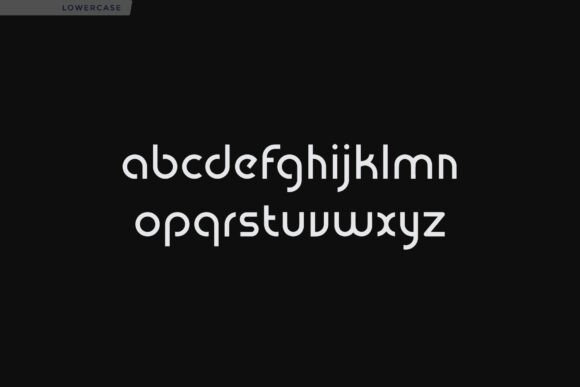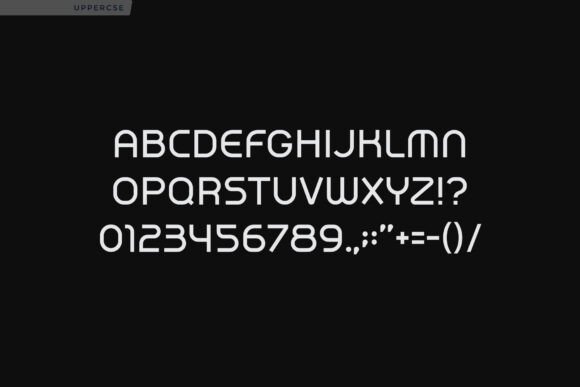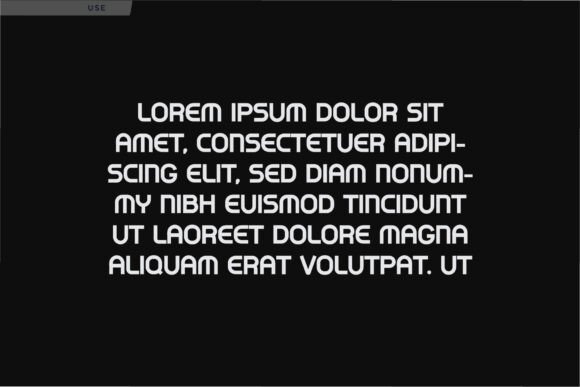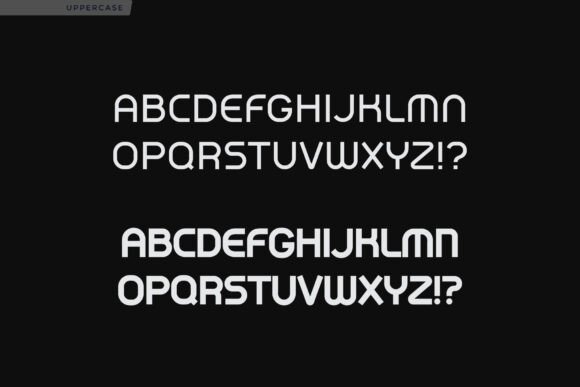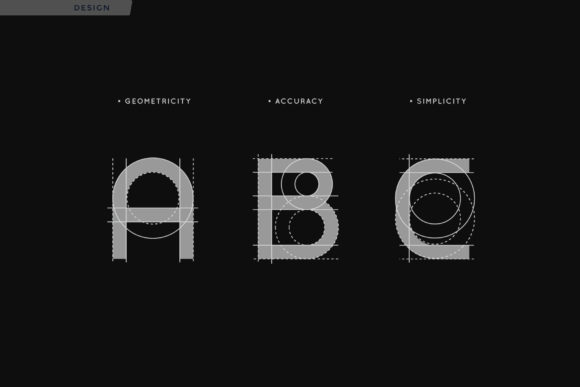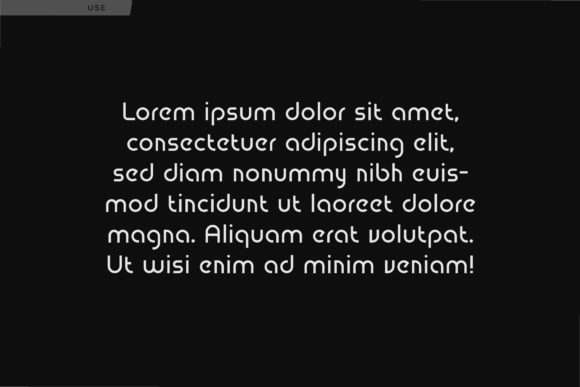
Unlocking the Power of Bauhaus Font
You’ve got that one creative moment where everything clicks, and your design ideas start flowing effortlessly. You’re brainstorming a new project, and you need a font that perfectly captures the essence of your vision. That’s where the Bauhaus Font comes in – a timeless, minimal, and neat sans serif font that effortlessly elevates your designs to the next level.
As a designer, you know how crucial it is to choose the right font that resonates with your audience and perfectly complements your creative vision. The Bauhaus Font is an excellent choice for any project, from modern websites to elegant brochures, and its versatility makes it an invaluable asset for any designer’s toolkit.
Bauhaus Font Key Features
- Unique Characteristics: The Bauhaus Font is known for its geometric and minimalist design, characterized by clean lines, simple shapes, and a sans-serif appearance.
Bauhaus Font Review
First off, I have to say that the Bauhaus font has a certain charm to it. ✨ Its geometric shapes and clean lines evoke the art deco era, which can be a great fit for designs that need a touch of nostalgia. The font is also highly legible, making it a great choice for body text.
- Highly legible
- Unique, art deco-inspired design
- Works well for titles and headings
However, the Bauhaus font does have some limitations. ⚠️ For one, it can be a bit too bold and overpowering for smaller text sizes. Additionally, it may not be the best choice for designs that require a more modern or minimalist aesthetic.
Overall, the Bauhaus font is a solid choice for designs that need a touch of elegance and sophistication. While it may not be the best fit for every project, it’s definitely worth considering for those looking to add a bit of flair to their design.
Getting the Most Out of Bauhaus Font
To get the most out of the Bauhaus font, try using it for:
- Artistic and creative projects.
- Designing typography-heavy materials.
- Creating a retro or vintage aesthetic.
The Bauhaus font is commonly used for:
- Graphic design projects.
- Logo design.
- Brochures and flyers.
Alternatives to Bauhaus Font for Designers
Avenir is a geometric sans-serif font designed by Adrian Frutiger in 1988. It’s known for its clean and modern lines, making it perfect for digital and print materials. Avenir is a good alternative to Bauhaus Font when you need a more contemporary and versatile font for titles and headings.
Comparison: Avenir has a more refined and elegant look compared to Bauhaus Font, which is more minimalist and retro-futuristic.
Avant Garde
Avant Garde is a sans-serif font designed by Herb Lubalin and Tom Carnase in 1970. It’s characterized by its unique and artistic style, making it suitable for creative and expressive designs. Avant Garde is a good alternative to Bauhaus Font when you need a font that adds a touch of personality to your design.
Comparison: Avant Garde has a more playful and artistic style compared to Bauhaus Font, which is more functional and minimalist.
Didot is a serif font designed by Firmin Didot in 1784. It’s known for its elegant and refined lines, making it perfect for luxury and high-end designs. Didot is a good alternative to Bauhaus Font when you need a font that conveys sophistication and elegance.
Comparison: Didot has a more traditional and classic look compared to Bauhaus Font, which is more modern and minimalist.
Univers
Univers is a sans-serif font designed by Adrian Frutiger in 1957. It’s known for its clean and modern lines, making it perfect for corporate and editorial designs. Univers is a good alternative to Bauhaus Font when you need a font that’s both functional and stylish